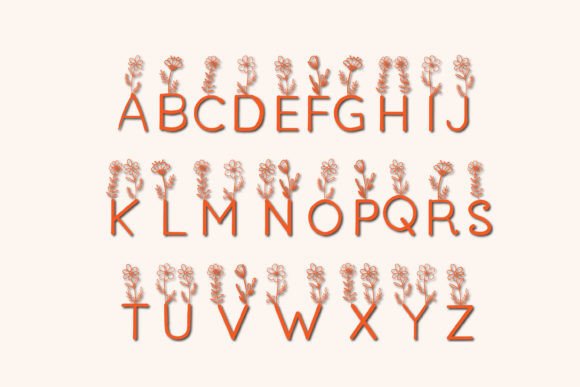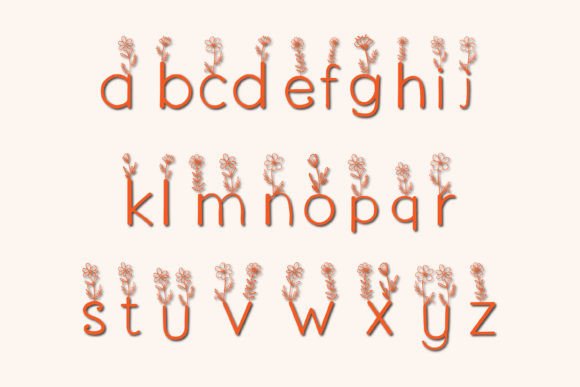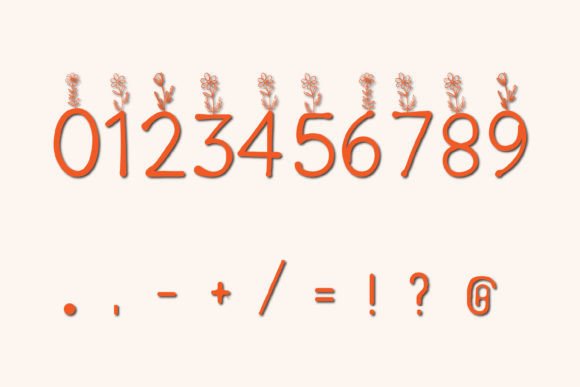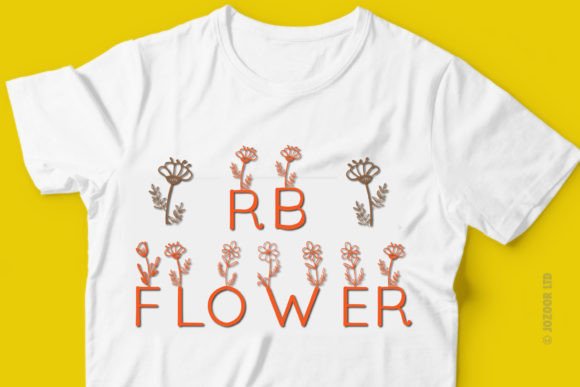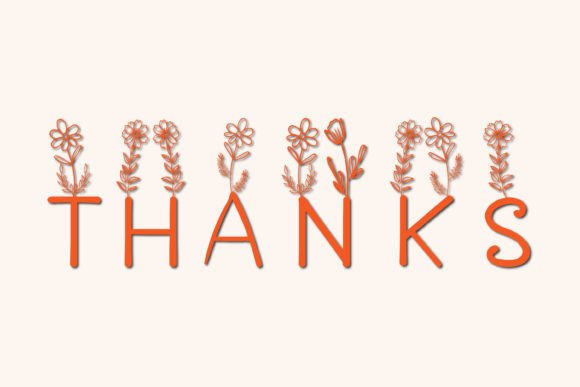
Introduction to Rb Flower Font
As a designer, there’s nothing quite like the thrill of discovering a new font that sparks creativity and sets your projects ablaze. It’s that moment when you stumble upon the perfect combination of style and functionality that makes all the difference. For those seeking to infuse their designs with a dash of whimsy and joy, we’re excited to introduce the Rb Flower Font – a vibrant and high-quality font that’s poised to become your go-to design resource.
With its transparent background and wide range of applications, the Rb Flower Font is an absolute must-have for designers looking to elevate their branding initiatives, packaging designs, and logotypes. Whether you’re working on a riveting campaign or a charming wedding invitation, this font is sure to add a sprinkle of magic to your creative project.
Key Features of Rb Flower Font
- High-quality, intricate design suitable for various creative projects, including graphic design, digital art, and more.
- Transparent background, allowing for seamless integration into any design, including logos, icons, and other visual elements.
- Features a unique, hand-drawn style with intricate details, making it stand out from other fonts and adding a touch of elegance to any design.
Honest Review: Rb Flower Font
As a designer, I’m always on the lookout for high-quality design resources to enhance my creative projects. Recently, I stumbled upon the Rb Flower Font, and I must say it’s a gem. With its beautiful and delicate design, this font is perfect for any project that requires a touch of elegance.
- ✨ High-quality design: The Rb Flower Font is incredibly detailed, making it perfect for printing or digital use.
- ✨ Transparent background: The font’s transparent background allows for seamless integration with any background, giving designers more flexibility.
- ✨ Versatile: The Rb Flower Font is perfect for various creative projects, from invitations to branding materials.
However, I did encounter a few limitations. ⚠️ The font is not suitable for bold or dramatic designs, as its delicate nature can get lost. Additionally, the font is not available in a wide range of sizes, which can be a limitation for some designers.
Overall, I’m impressed with the Rb Flower Font. Its high-quality design and transparent background make it a valuable addition to any designer’s toolkit. If you’re looking for a beautiful and elegant font for your next creative project, the Rb Flower Font is definitely worth checking out. And the best part? It’s available for free download, making it an excellent free design resource.
Tips for Getting the Most Out of Rb Flower Font
For optimal results, use Rb Flower Font in combination with a high-contrast background to make the text stand out. Experiment with different font sizes and styles to add visual interest to your design.
Rb Flower Font is perfect for wedding invitations, floral-themed designs, and other creative projects that require a touch of elegance and sophistication. You can also use it for titles, headings, and body text in your design.